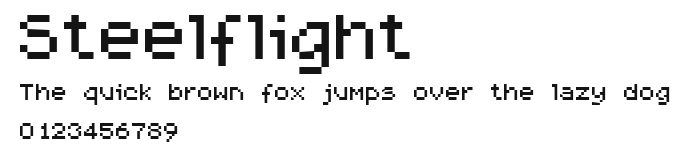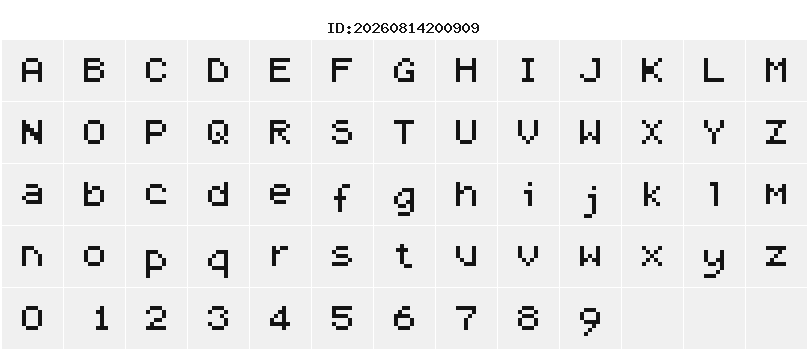
• Font Name: Steelflight
• Font ID: Steelflight by Caveras
• Full Font Name: Steelflight
• Designer: Caveras / Cliff Modes
• Description: Steelflight by Caveras - based on the original main text font used in the Shadowrun video game for the SNES (Beam Software/DataEast USA, 1993).